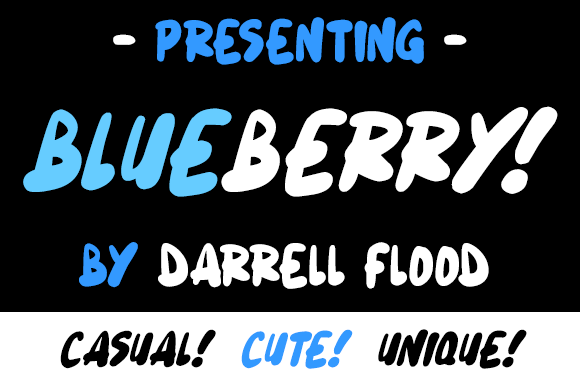
HomeScript FontsBlueberry Font Script Fonts Blueberry Font FacebookXPinterestWhatsApp About Blueberry Font The Blueberry is a natural, hand drawn font with lots of varying widths. Expressive and unique! DOWNLOAD ON CREATIVE FABRICAThis font is sold and delivered by Creative Fabrica. Font Canyon may earn a commission if you buy through this link. People also explored Play Dreidel Font Wonderful Day Font Sepona Font Jolly Joy Font Ballerina Font Jewels Font Sunrises Font The Essential Font Adelliya Script Font 284 0 TagsBlueberry Font Previous articleExtra Fruity FontNext articleRaliangi Font LEAVE A REPLY Cancel reply Comment: Please enter your comment! Name:* Please enter your name here Email:* You have entered an incorrect email address! Please enter your email address here Website: Save my name, email, and website in this browser for the next time I comment. Personal Use Free Wallabys Junior Personal Use Free Read more about this font Evelyne Personal Use Free Read more about this font Almonte Personal Use Free Read more about this font Archipellago Personal Use Free Read more about this font BLOG Top 10 Handwritten Fonts That Elevate Your Designs Top 10 Handwritten Fonts That Will Elevate Your Designs Handwritten fonts bring a warm, personal touch to every creative project. Whether you're designing logos, invitations,... How to Cut Any Font on Cricut: Convert a Font to SVG (Free) Modern Sans-Serif Fonts That Brands Love in 2025 Top 7 Google Fonts Alternatives for Faster and Privacy-Friendly Web Design (2025)